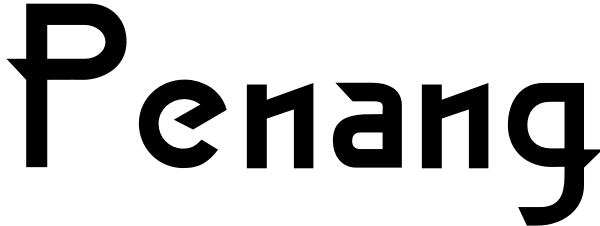
Penang
Penang is a modern take on an old piece of Art Deco signage I had discovered in Penang Malaysia. The font is available in four styles: Regular, Bold and Italics of both. It looks great as All Caps but works equally well in standard copy. The font is...